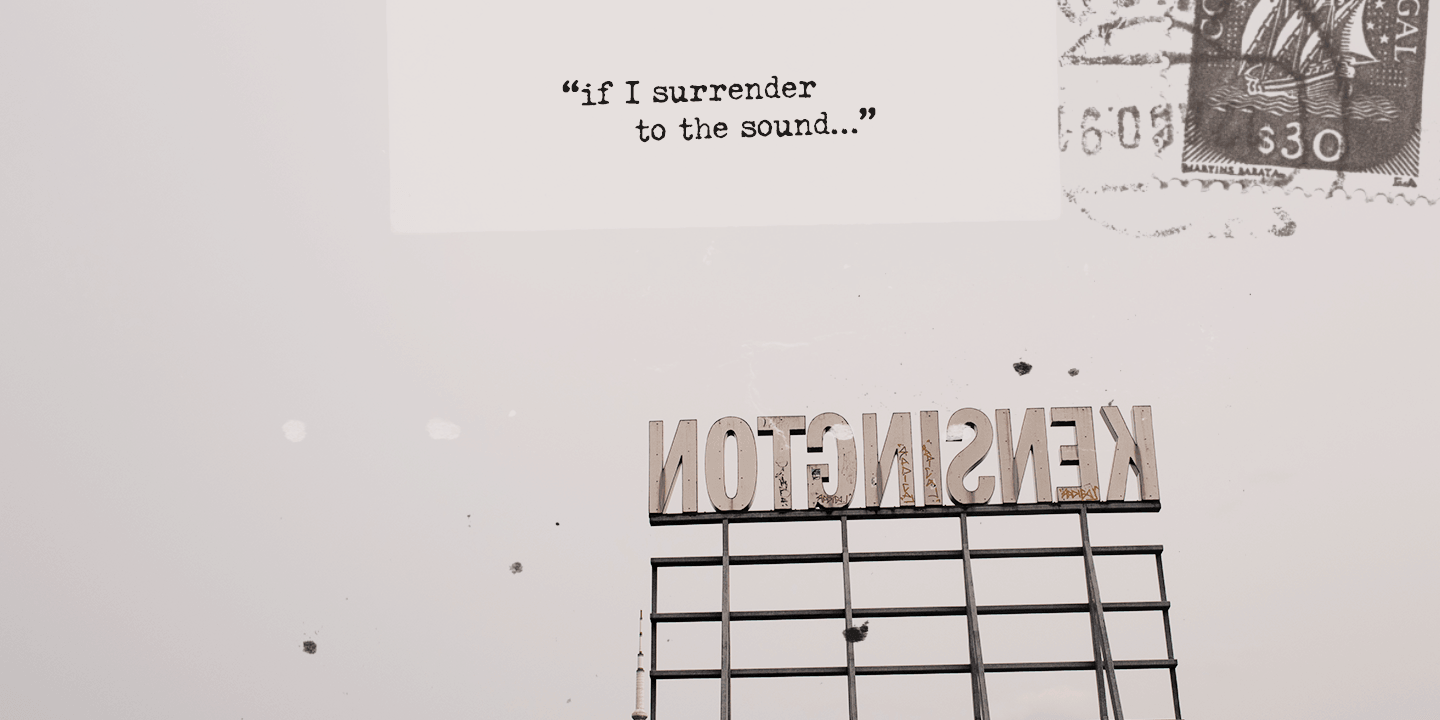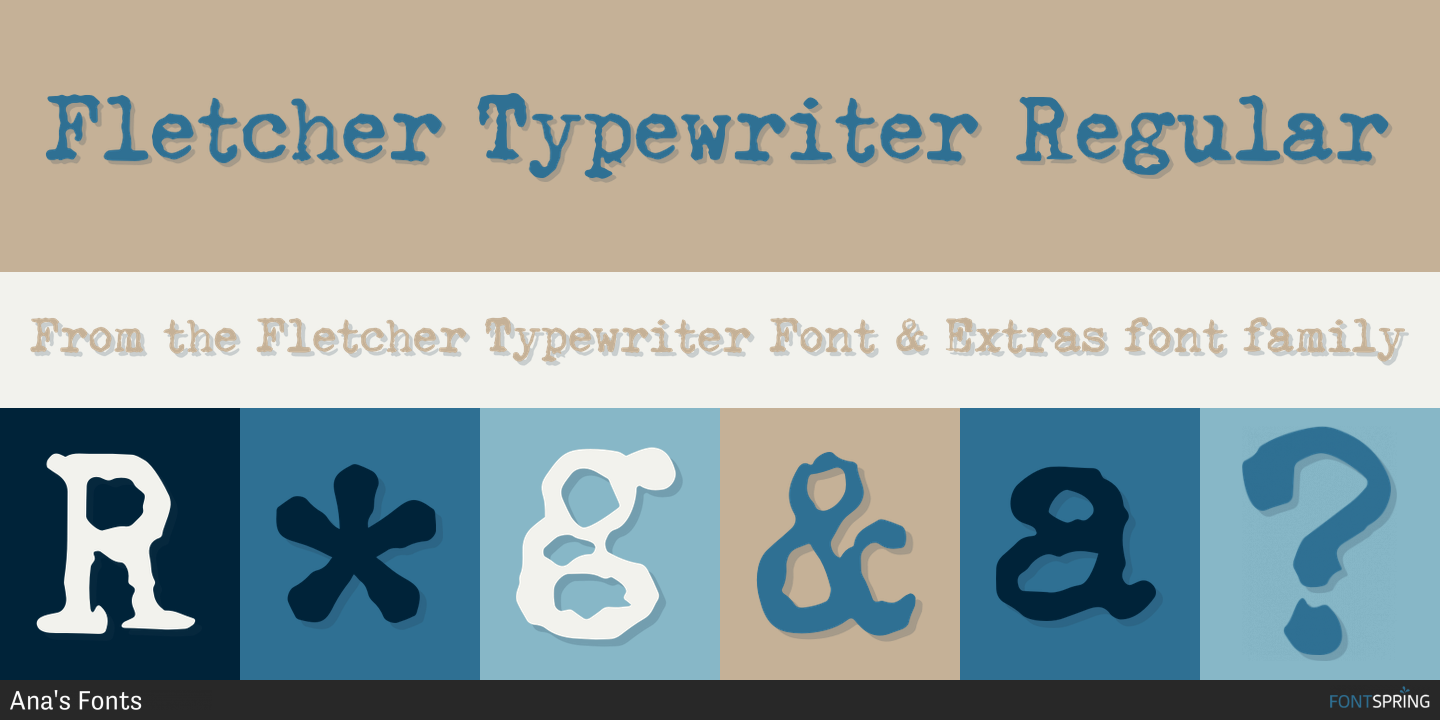
Fletcher Typewriter Bold Jumpy Font Free Download . Thick and bold, carbontype is one of the few free typewriter fonts that's perfect for typewriter headlines and large straps. Our website helps you find any font from any image. Whether you’re looking for something clean and refined or a more worn, authentic feel, in this collection we share some. Use it in long or short texts, in digital collages, branding and packaging, social media posts, logotypes, etc. Perfect for adding a vintage touch to your designs. Fletcher typewriter font and extras is an authentic vintage typewriter font, perfect to add an extra retro look to your designs. Use it in long or short texts, in digital collages,. Thousands of designers (famous or not) use the image font detection system to find a font or similar free fonts from an image. Using a catalog of over 990k+ fonts (commercial or free) and our font finder ai, we. Discover our vast collection of free bold, typewriter fonts.
Fletcher Typewriter Bold Jumpy Font Free Download Perfect for adding a vintage touch to your designs. Our website helps you find any font from any image. Thick and bold, carbontype is one of the few free typewriter fonts that's perfect for typewriter headlines and large straps. Perfect for adding a vintage touch to your designs. Using a catalog of over 990k+ fonts (commercial or free) and our font finder ai, we. Fletcher typewriter font and extras is an authentic vintage typewriter font, perfect to add an extra retro look to your designs. Thousands of designers (famous or not) use the image font detection system to find a font or similar free fonts from an image. Whether you’re looking for something clean and refined or a more worn, authentic feel, in this collection we share some. Use it in long or short texts, in digital collages, branding and packaging, social media posts, logotypes, etc. Discover our vast collection of free bold, typewriter fonts. Use it in long or short texts, in digital collages,.
2D to 3D Fletcher Typewriter Font and Extras YouTube Fletcher Typewriter Bold Jumpy Font Free Download Use it in long or short texts, in digital collages,. Perfect for adding a vintage touch to your designs. Fletcher typewriter font and extras is an authentic vintage typewriter font, perfect to add an extra retro look to your designs. Our website helps you find any font from any image. Using a catalog of over 990k+ fonts (commercial or free). Fletcher Typewriter Bold Jumpy Font Free Download.
Fletcher Typewriter Font and extras Behance Fletcher Typewriter Bold Jumpy Font Free Download Thousands of designers (famous or not) use the image font detection system to find a font or similar free fonts from an image. Using a catalog of over 990k+ fonts (commercial or free) and our font finder ai, we. Our website helps you find any font from any image. Fletcher typewriter font and extras is an authentic vintage typewriter font,. Fletcher Typewriter Bold Jumpy Font Free Download.
Fletcher Typewriter Bold Jumpy字体购买,商用授权,下载MyFonts代购店字谷网 Fletcher Typewriter Bold Jumpy Font Free Download Our website helps you find any font from any image. Use it in long or short texts, in digital collages,. Using a catalog of over 990k+ fonts (commercial or free) and our font finder ai, we. Thousands of designers (famous or not) use the image font detection system to find a font or similar free fonts from an image. Discover. Fletcher Typewriter Bold Jumpy Font Free Download.
Fletcher Typewriter Font and Extras Design Cuts Fletcher Typewriter Bold Jumpy Font Free Download Thousands of designers (famous or not) use the image font detection system to find a font or similar free fonts from an image. Our website helps you find any font from any image. Use it in long or short texts, in digital collages, branding and packaging, social media posts, logotypes, etc. Perfect for adding a vintage touch to your designs.. Fletcher Typewriter Bold Jumpy Font Free Download.
Fletcher Typewriter Font & Extras Font Fletcher Typewriter Bold Jumpy Font Free Download Discover our vast collection of free bold, typewriter fonts. Using a catalog of over 990k+ fonts (commercial or free) and our font finder ai, we. Perfect for adding a vintage touch to your designs. Use it in long or short texts, in digital collages, branding and packaging, social media posts, logotypes, etc. Use it in long or short texts, in. Fletcher Typewriter Bold Jumpy Font Free Download.
Download free 13_Fletcher Regular font Fletcher Typewriter Bold Jumpy Font Free Download Perfect for adding a vintage touch to your designs. Use it in long or short texts, in digital collages,. Whether you’re looking for something clean and refined or a more worn, authentic feel, in this collection we share some. Fletcher typewriter font and extras is an authentic vintage typewriter font, perfect to add an extra retro look to your designs.. Fletcher Typewriter Bold Jumpy Font Free Download.